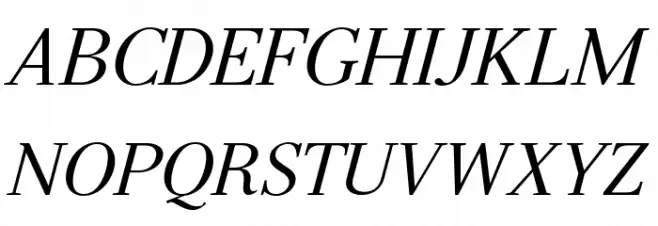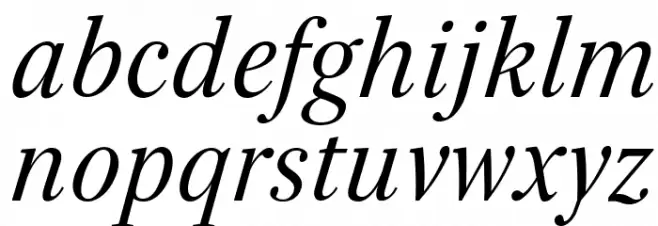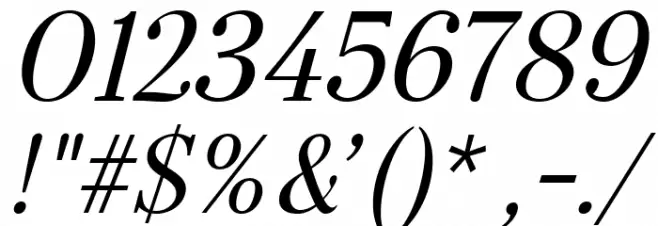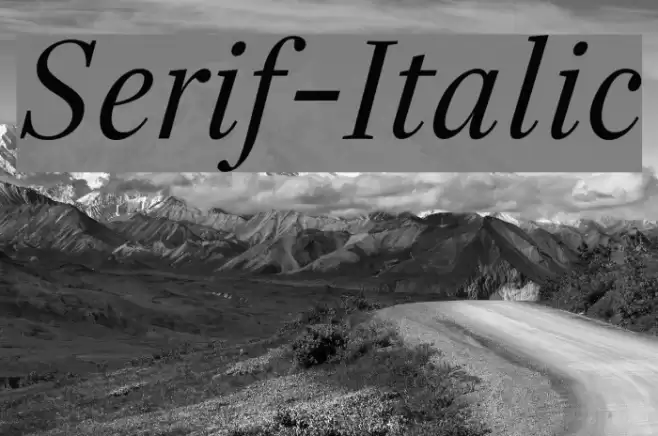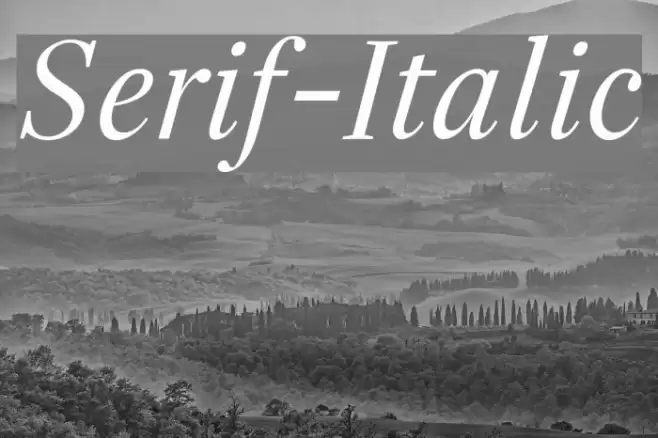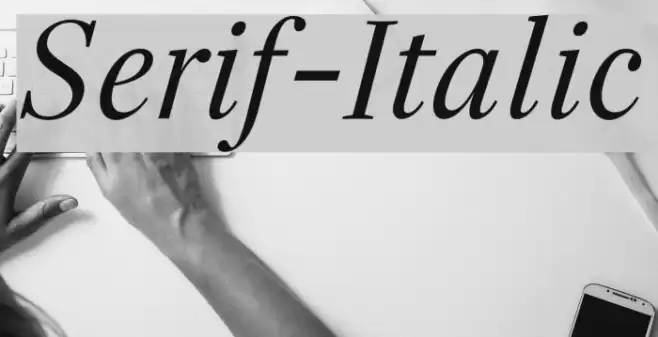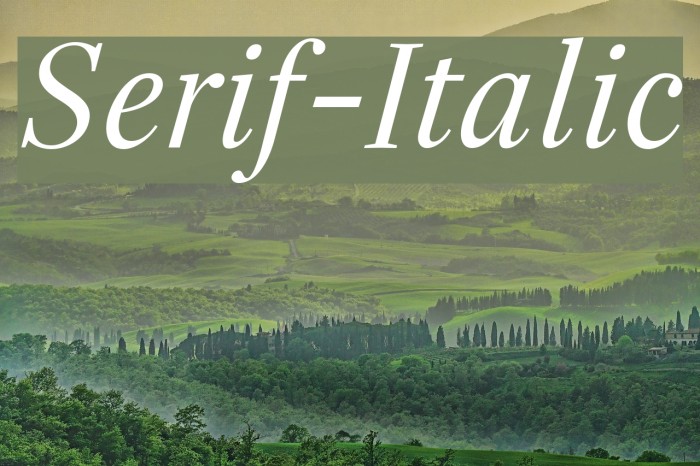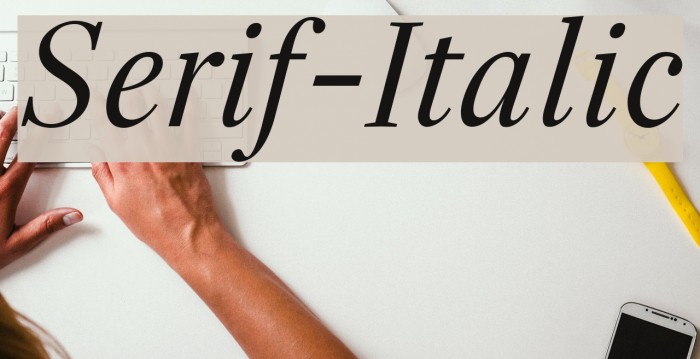
Serif-Italic
This elegant serif font features a classic italic style, characterized by its graceful curves and refined serifs. The letters exhibit a slight slant, adding a sense of motion and sophistication. The uppercase letters are tall and stately, while the lowercase letters maintain a consistent flow, enhancing readability. The numerals are well-proportioned, and the special characters are designed to complement the overall aesthetic. This font's timeless appeal makes it suitable for a variety of formal and creative applications.
An elegant serif font with a classic italic style, featuring graceful curves and refined serifs.
- Proposed Projects: Ideal for use in formal invitations, elegant branding, book covers, and editorial design.
- Category: Serif
- Overall Style: Classic